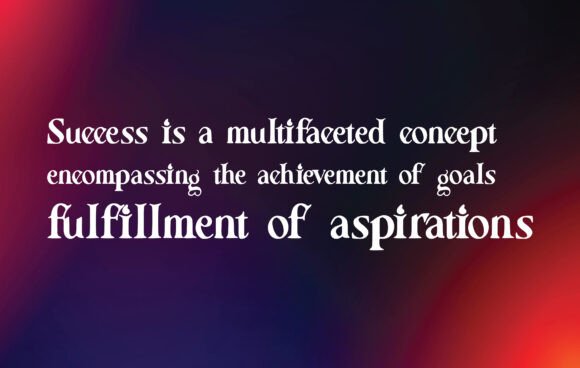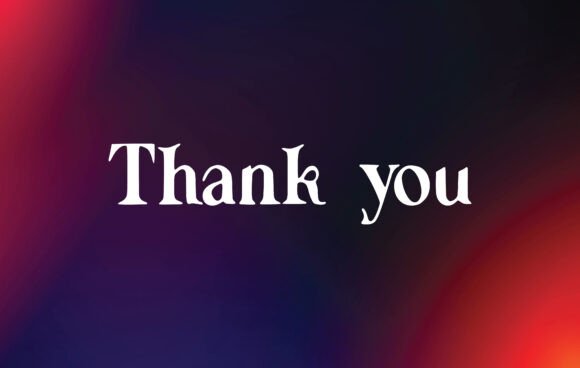
Introduction to Coleson Font
Coleson is a lovely and beautiful font.
Key Features of Coleson Font
Why Choose Coleson Font?
Coleson Font offers exceptional quality and versatility, making it a valuable addition to your design toolkit. Whether you’re creating for personal projects or commercial use, Coleson Font delivers professional results.